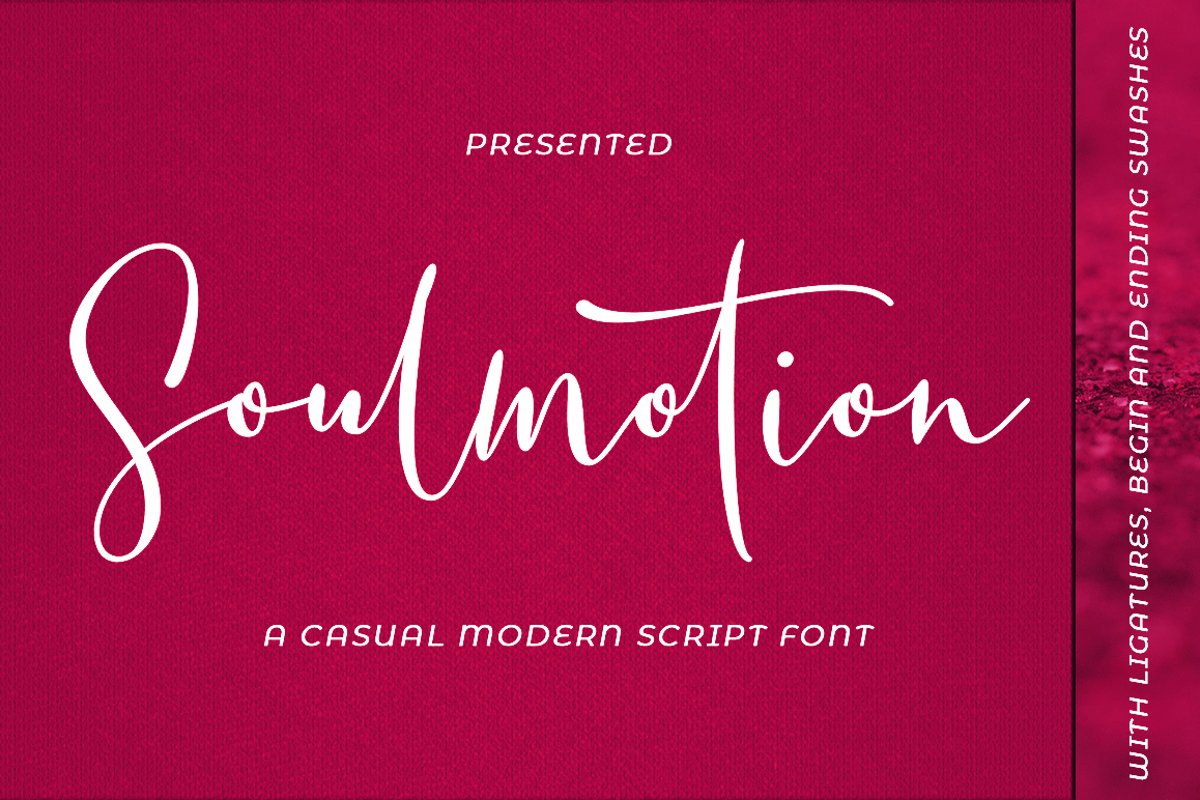
Soulmotion
Soulmotion script is a seductive font that is made with a touch of elegance and feeling to give the best touch.
Soulmotion script an elegant combination of a script. It is slender, feminine and classy, while still maintaining a friendly feel. Soulmotion script is versatile and will work perfectly for fashion, e-commerce brands, trend blogs, wedding boutiques or any business that wants to appear upscale and chic. With its ton ligatures varian and stylistic character Soulmotion script is perfect for creating original and functional designs. It has extensive language support and tons of ligatures, alternates, stylistic sets that add visual interest to every letter.